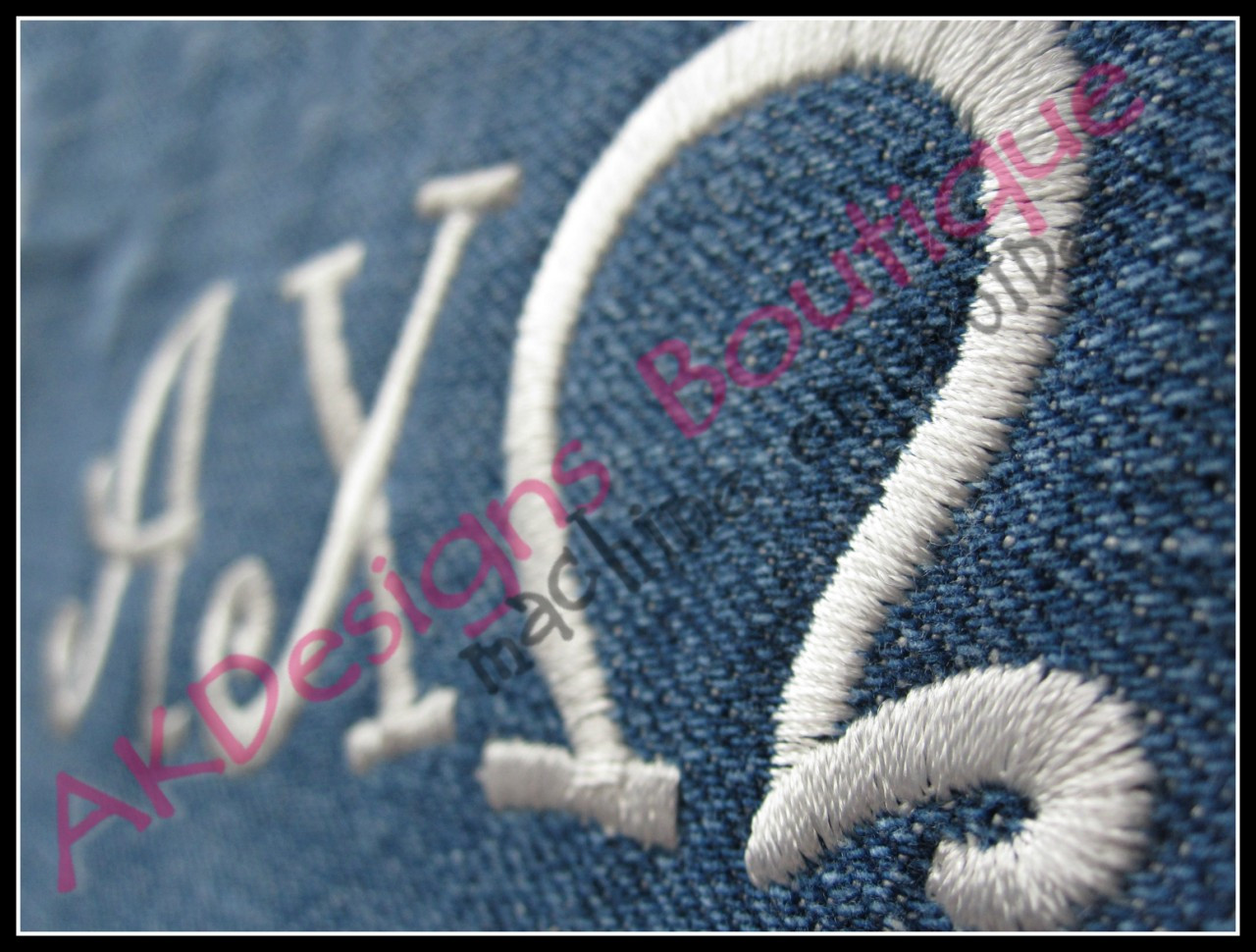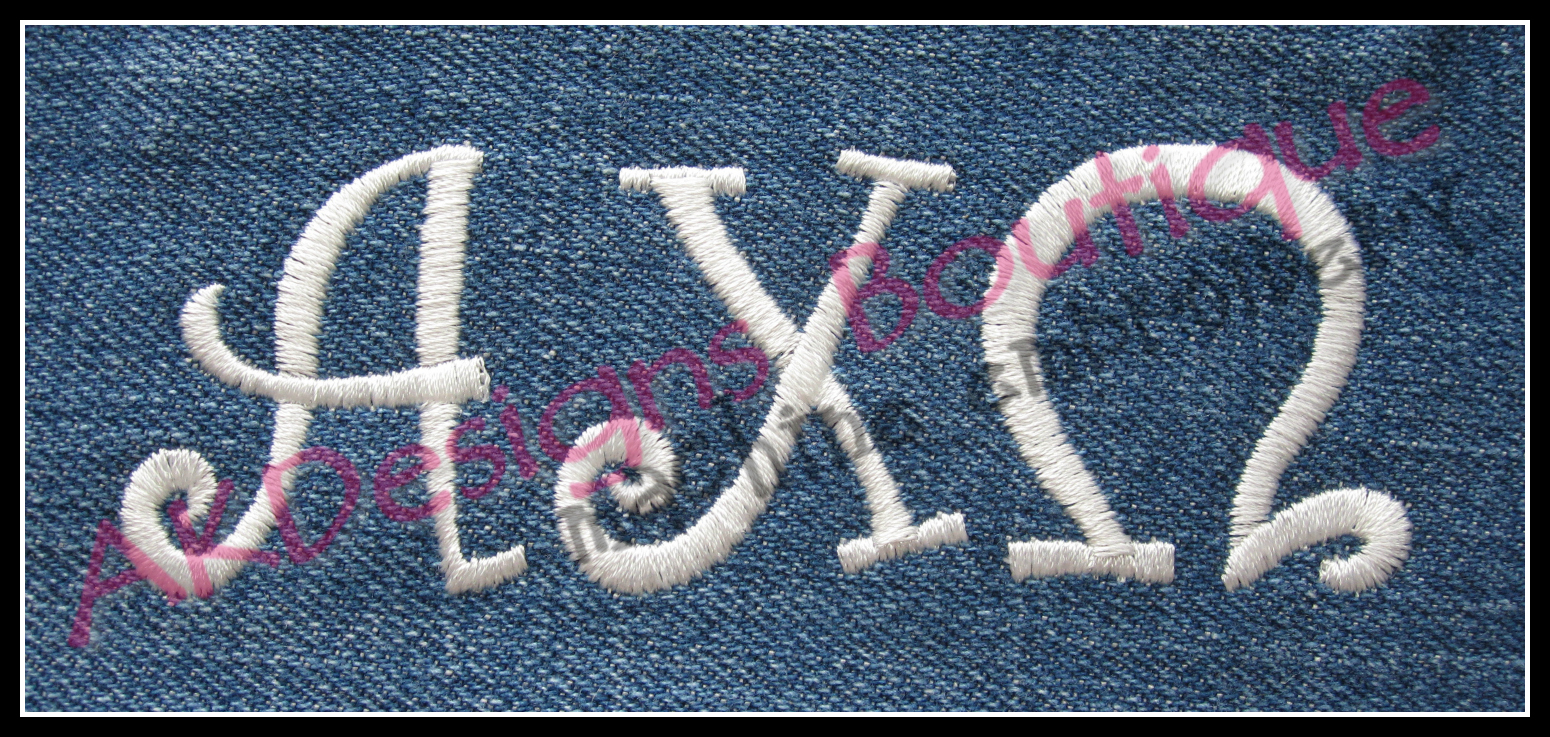
No 1409 Curly Greek Font Machine Embroidery Designs 1.5 inch high
• Close-up of sample stitched on denim
• All the Greek Letters included in this set.
• Sample stitched on denim
No 1409 Curly Greek Font Machine Embroidery Designs 1.5 inch high
This set contains 24 individual designs:
• 24 Uppercase Greek Letters – 1.5” high